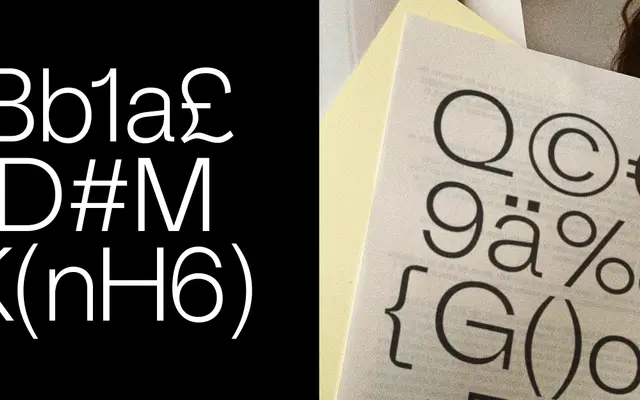
Non Natural Grotesk
A grotesque sans by Jonathan Saucedo offered in plain and inktrap variants across five weights, with open apertures and balanced counters foregrounding legibility.
Designed by Jonathan Saucedo, Non Natural Grotesk runs across five weights from Thin to Bold, each available in a Plain and an Inktrap style. Open apertures and balanced counter widths maintain clarity across weights and sizes, making it suitable for both screen interfaces and print. The inktrap variant introduces a subtle mechanical quality that distinguishes it from straightforward grotesque offerings.
A grotesque sans-serif with balanced counter widths and open apertures, following the conventions of classic grotesque design with a contemporary inktrap variant distinguishing it from straight revivals.